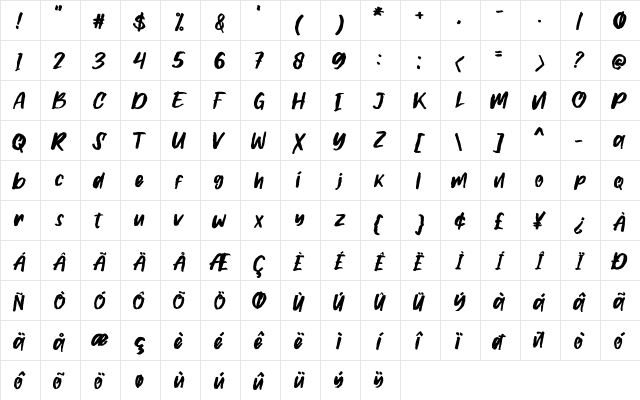
Gilmoore Rough
Design Context for Gilmoore Typeface
Gilmoore embraces imperfection — its rough, textured character adds raw authenticity to designs that want to feel lived-in and unconventional.
A strong fit for alternative music projects, graffiti-adjacent design, and anything that deliberately resists polish.
Pro Tip: Use Gilmoore at larger sizes where the texture and irregularity of each letterform can be clearly seen — it loses its character at small sizes.